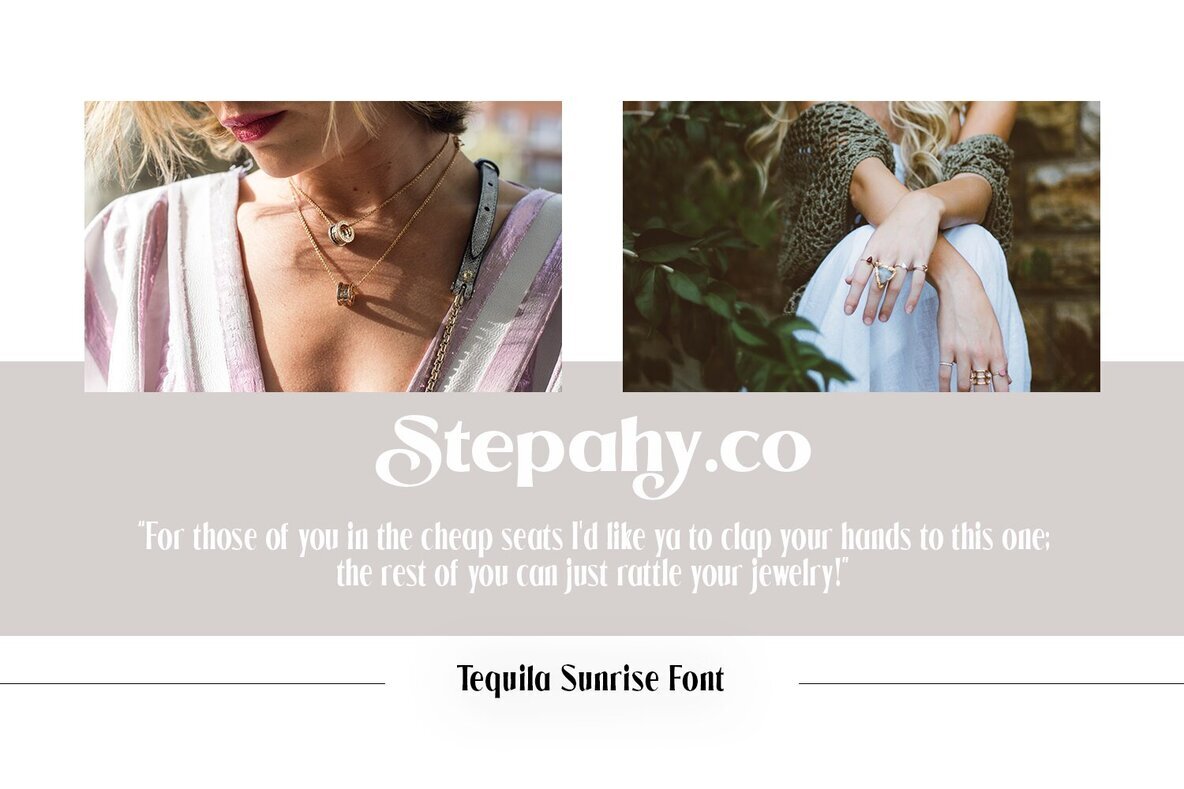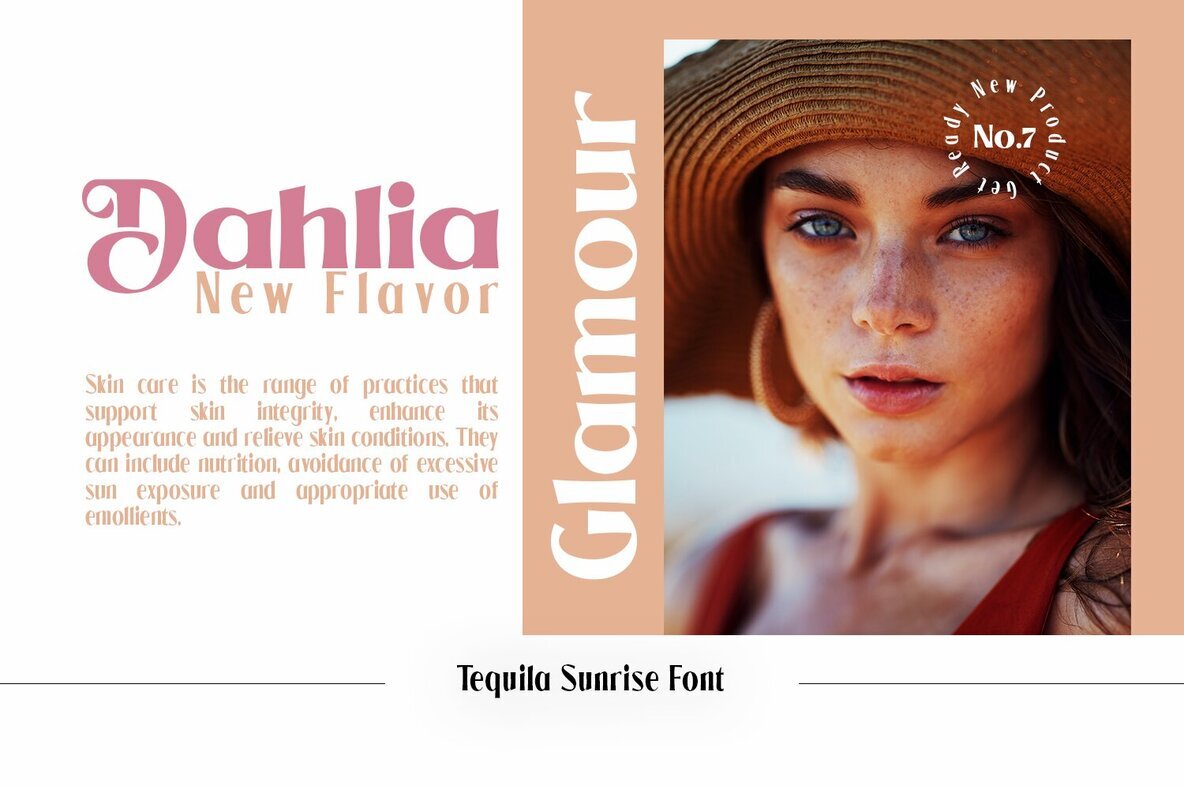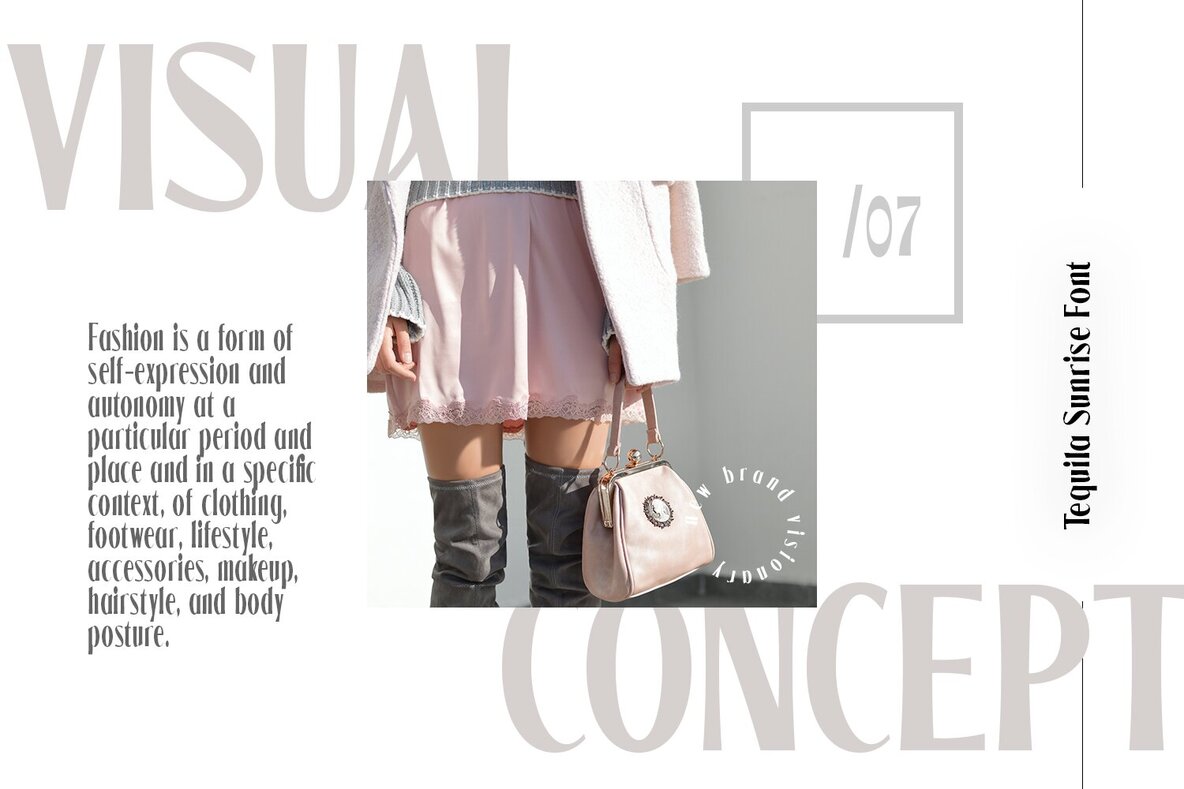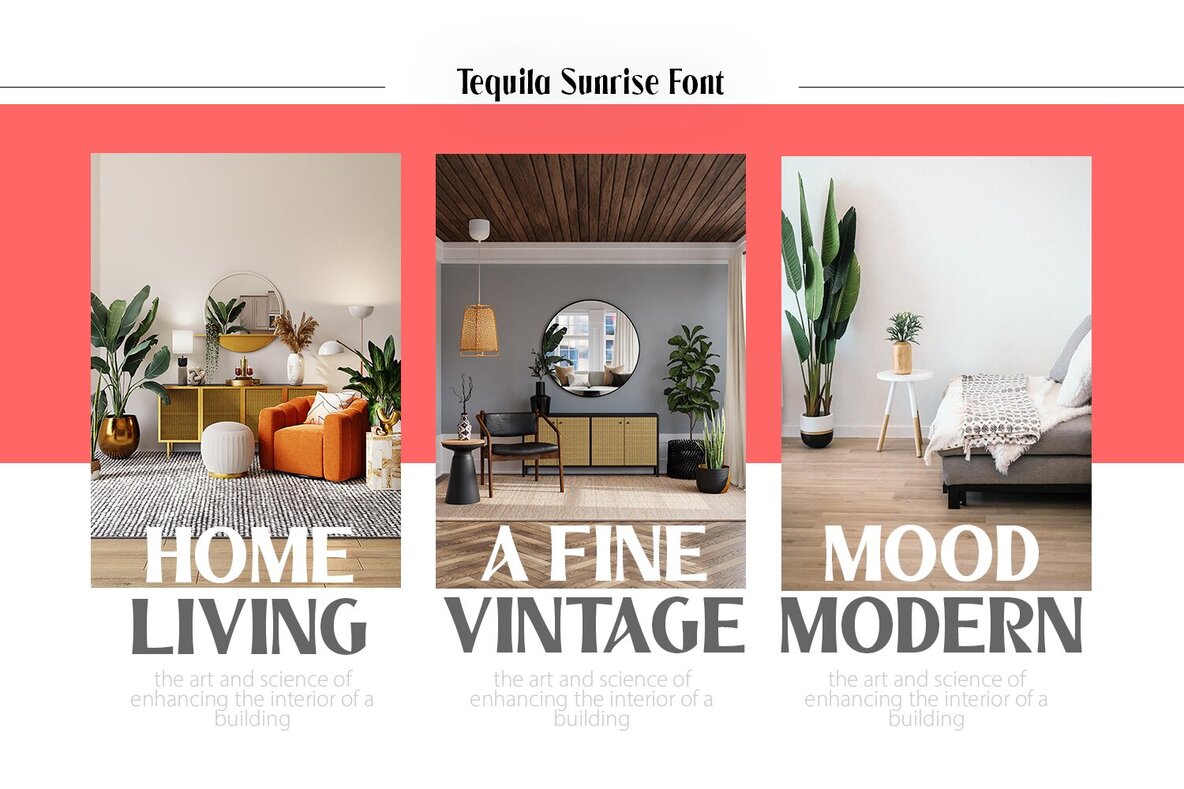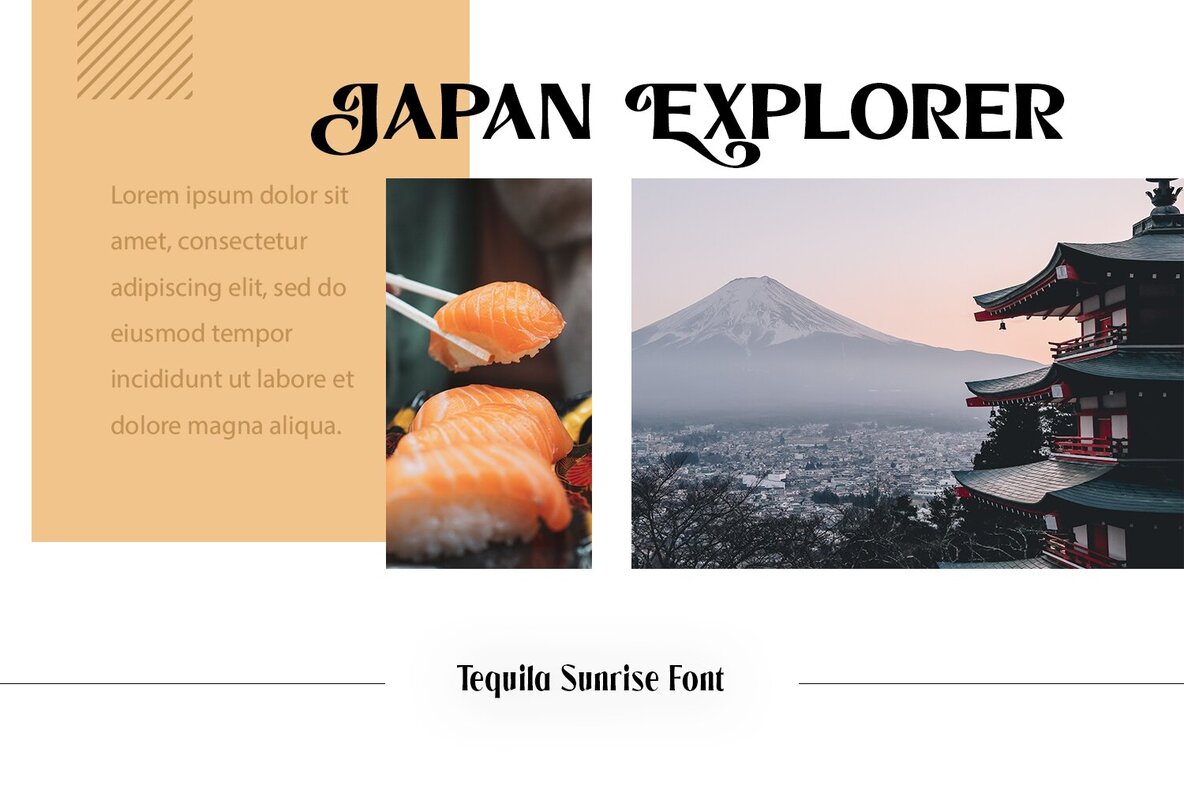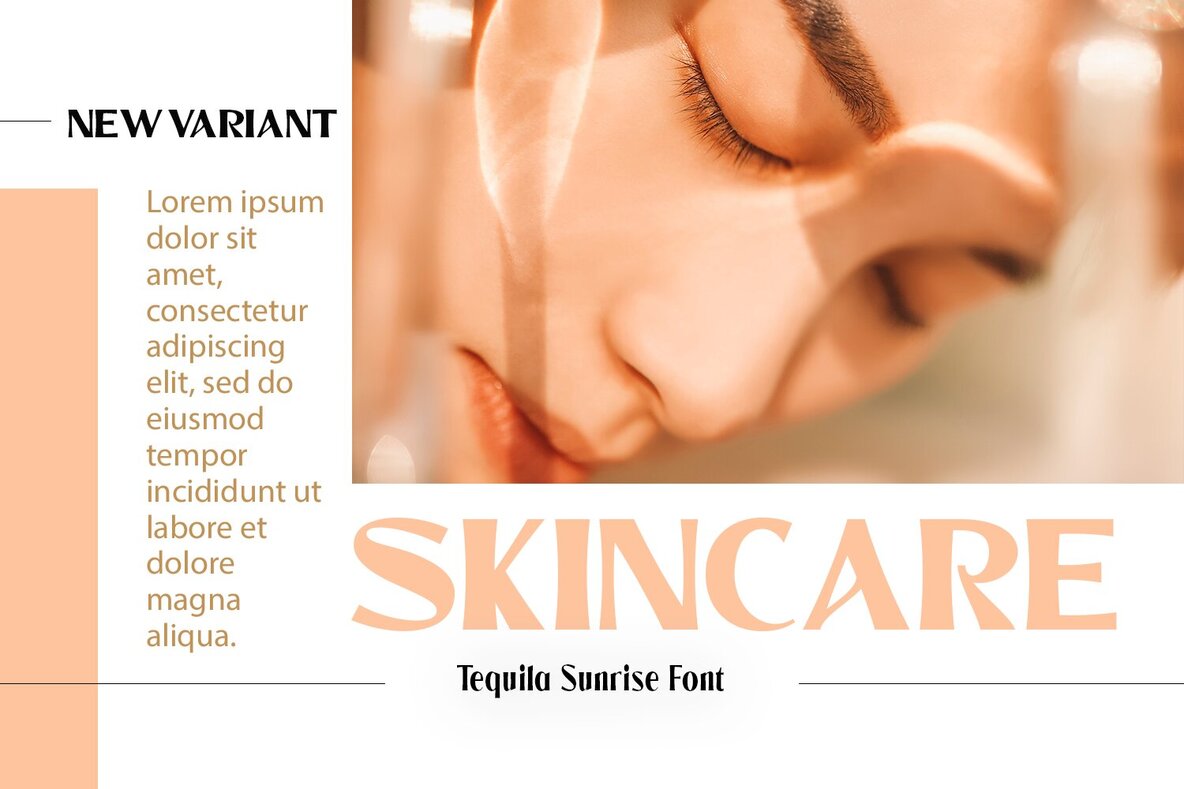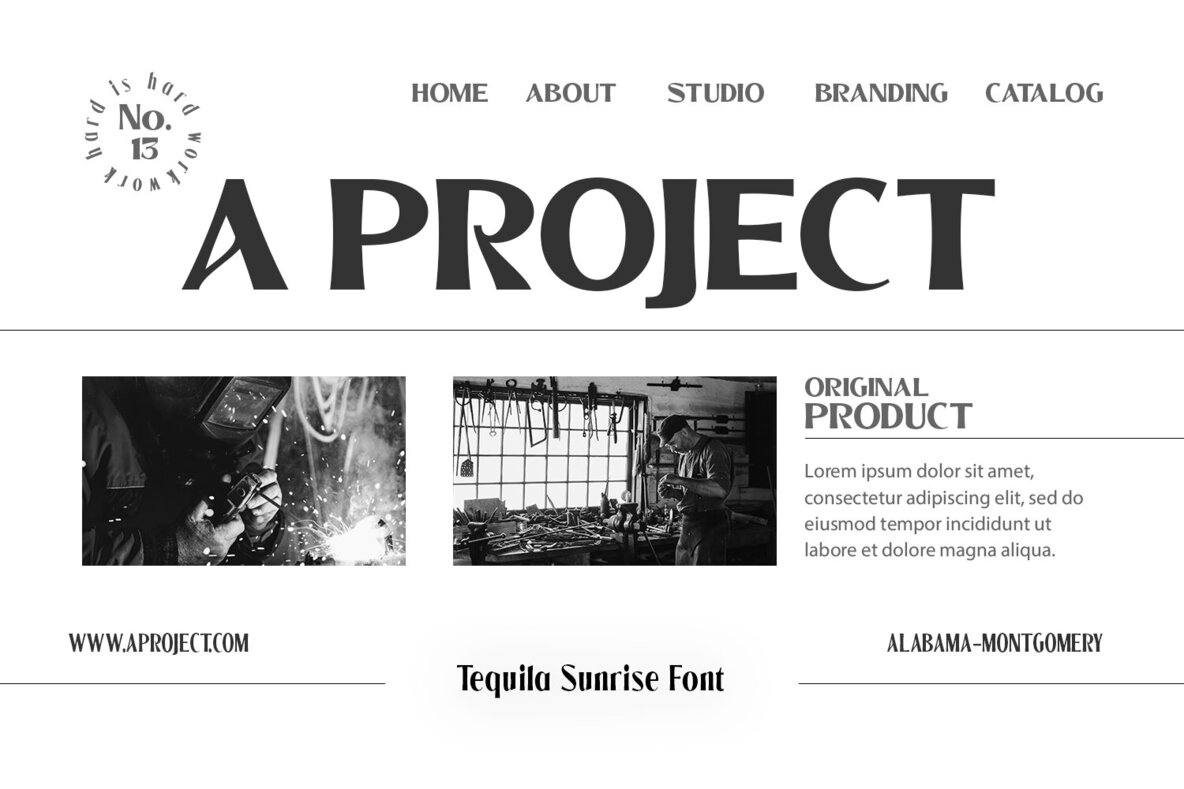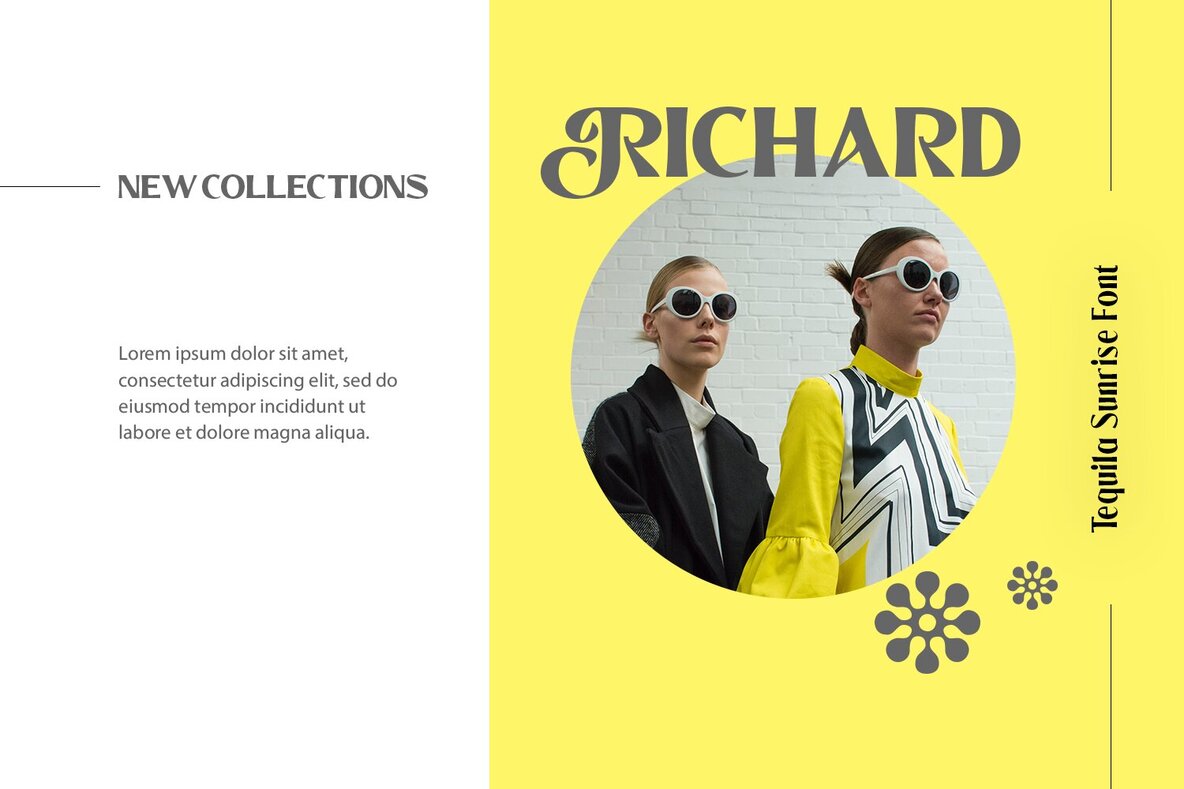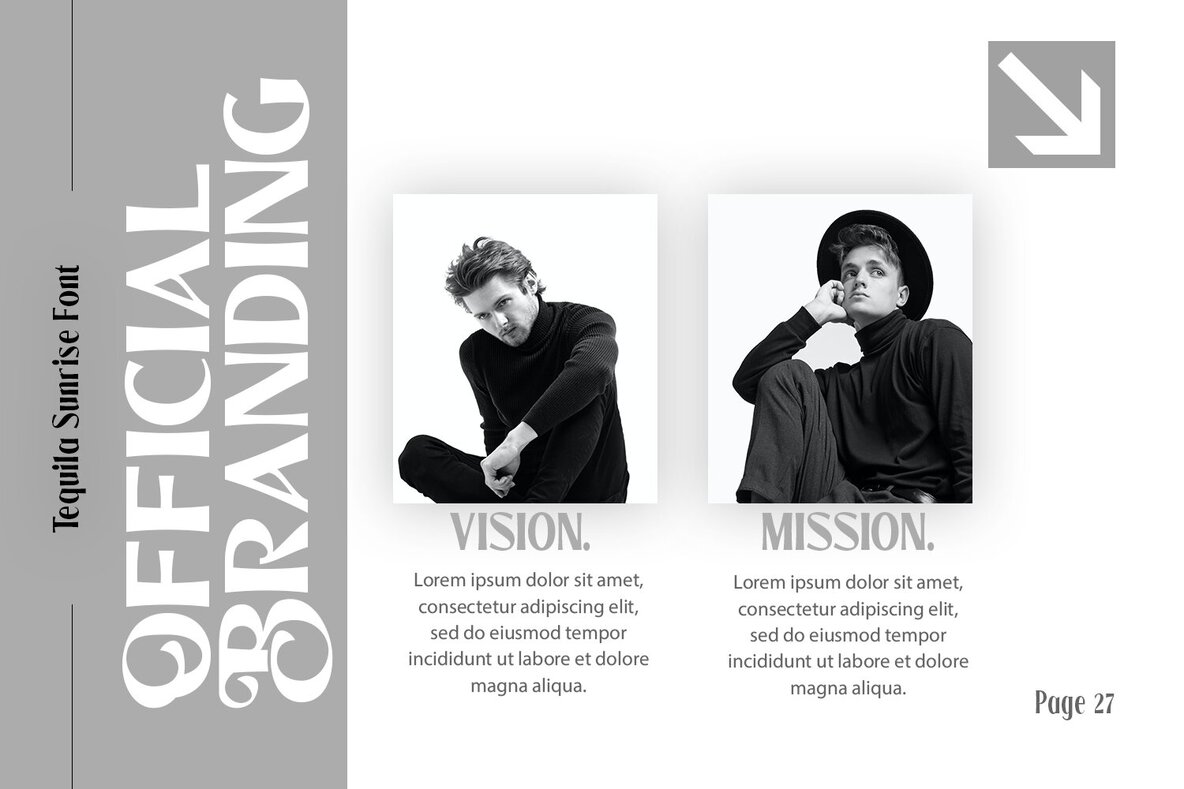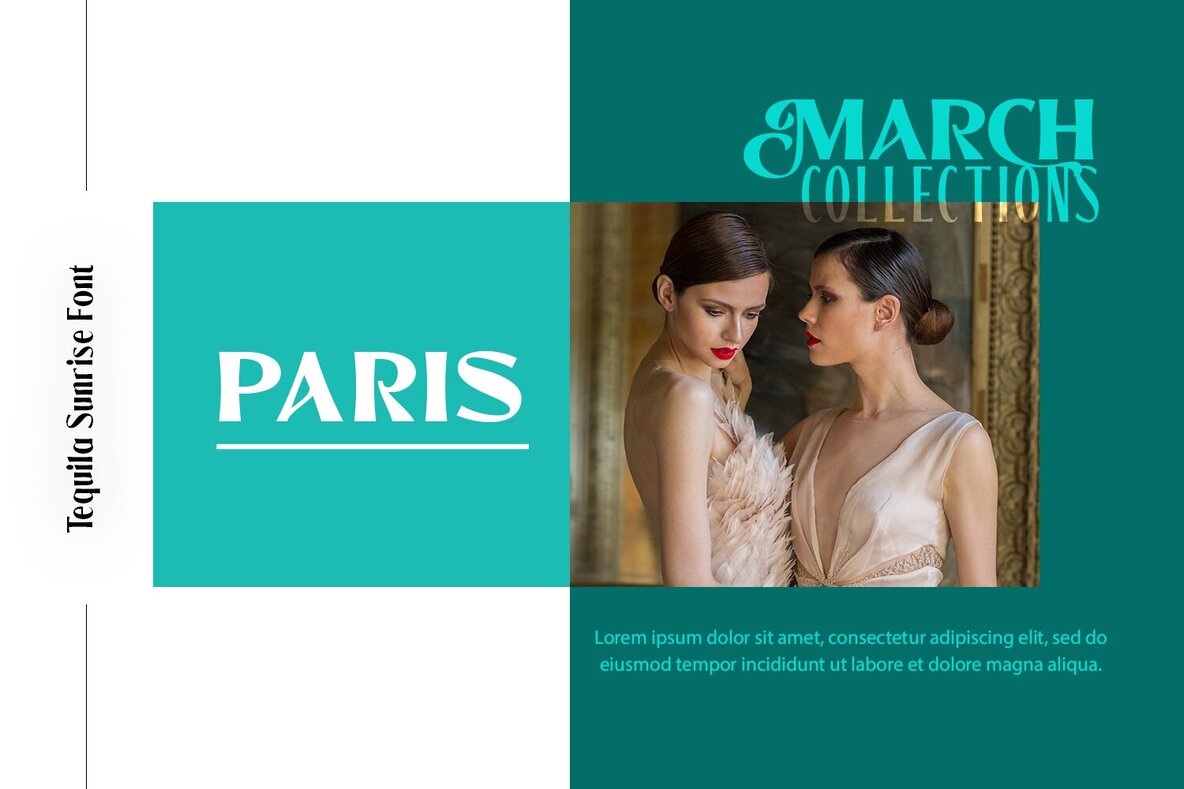
Tequila Sunrise is an edgy font with many special alternative glyphs and ligatures to create stunning designs. It comes with 7 variable weight options for use on branding, product packaging, etc...